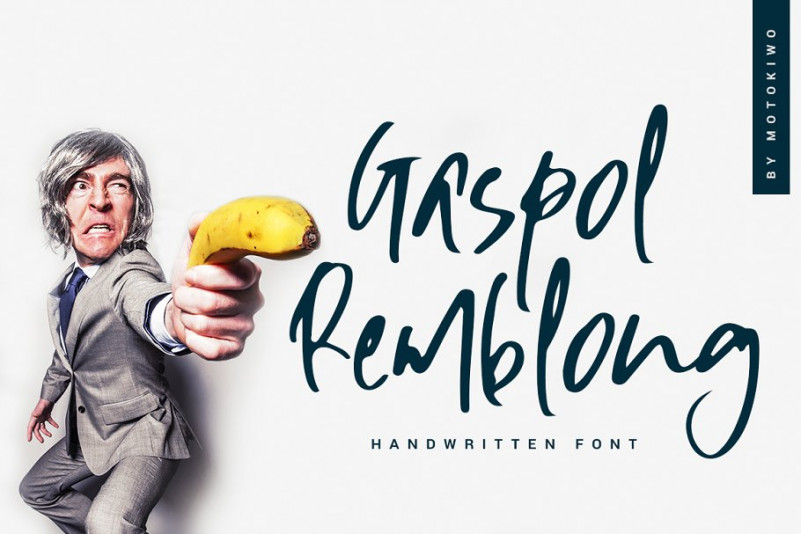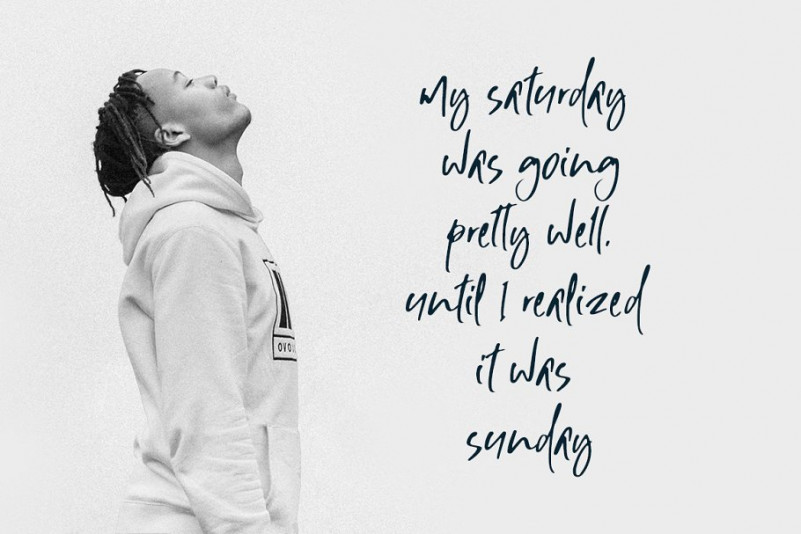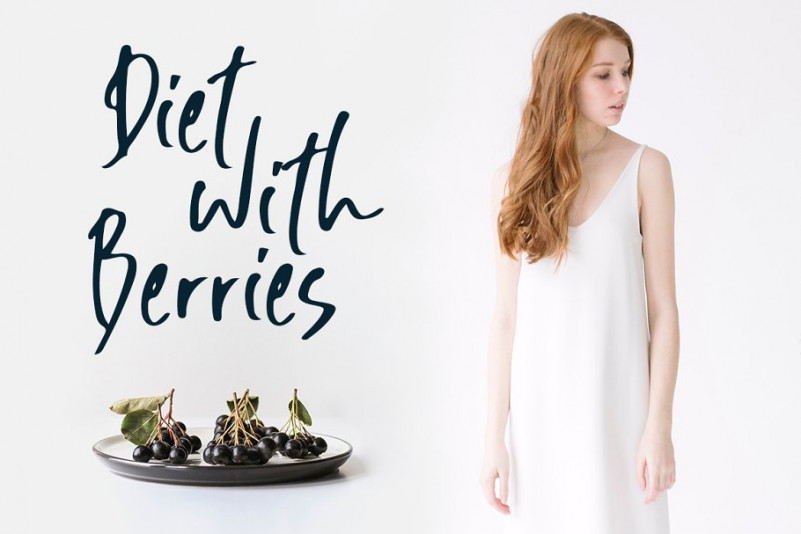
Gaspol Remblong Font
Gaspol Remblong – a natural handwritten script font with attractive style. It’s fun typeface that recommended for headline, poster, movie, music, branding, and logo. Gaspol Remblong packed with Uppercase, Lowercase, Numeral, Punctuation, Multilingual, and also Ligature.